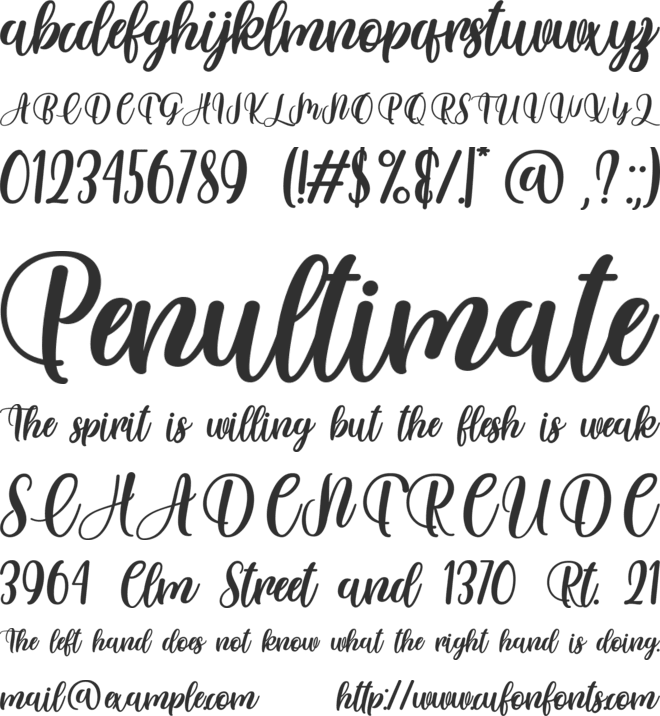
Especially for script fonts with those extra glyphs that really take your design to the next level save yourself the trouble and grab these free fonts that have those fancy tails and swashes.
So many people ask about fonts that included flowing tailsafter much searching i have found that most of the fonts that have tails are using only paid versions. Click to find the best 17 free fonts in the tail style. Introducing the fox tail font. A collection of free downloadable fonts that have tails included.